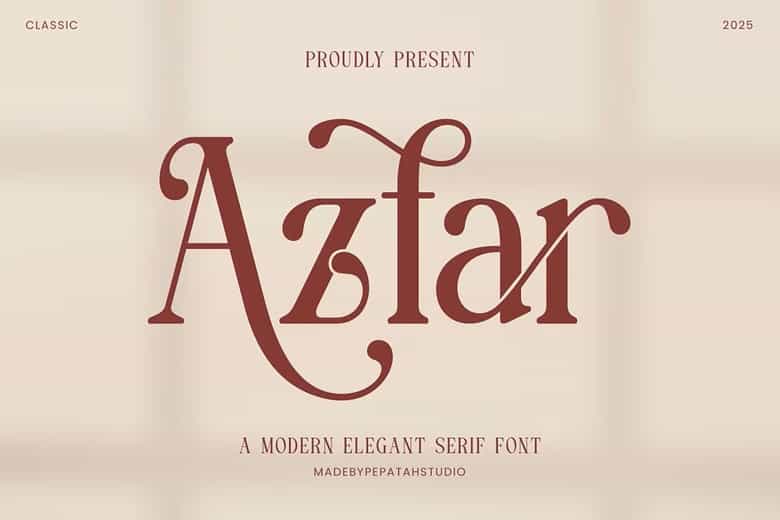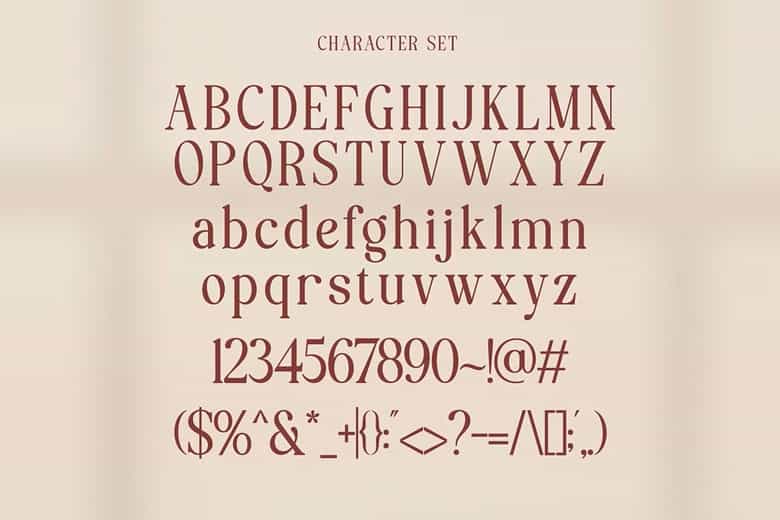
Azfar is a simply serif font, but the very embodiment of a vision, leadership and hope. This font is inspired by the soul of a small young child; a child that has courage to dream big and strength to lead with wisdom, and is suitable to convey meaningful, powerful and inspiring messages. This font portrays the character of a young leader who is well balanced in thoughts and actions that inspire other people using inspirational words and thoughtful actions. This font was made of every curve and line; this is the bravery to make great decisions and the desire to thrive.